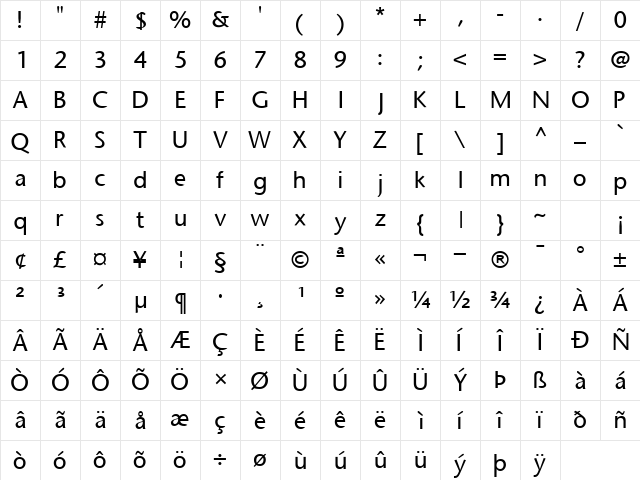
MesouranSansSSK Regular
MesouranSansSSK Family
MesouranSansSSK Regular
MesouranSansSSK Regular Font Preview
MesouranSansSSK Regular Uppercase Preview
MesouranSansSSK Regular Lowercase Preview
MesouranSansSSK Regular Numeric Preview
MesouranSansSSK Regular Character Map
Complete MesouranSansSSK Regular glyph index. Displaying only characters natively supported by MesouranSansSSK Regular font.
MesouranSansSSK Regular Character Map
Design Context for MesouranSansSSK
MesouranSansSSK is a composed and adaptable typeface that performs quietly and consistently across a wide range of design contexts.